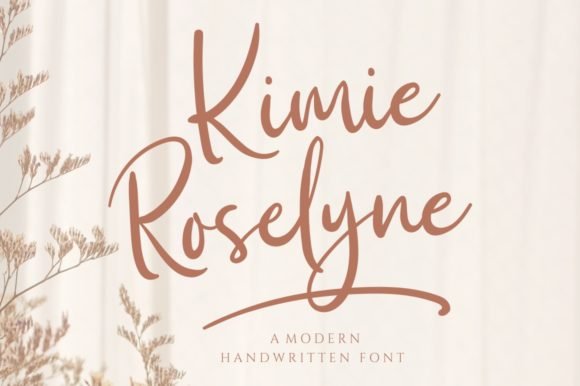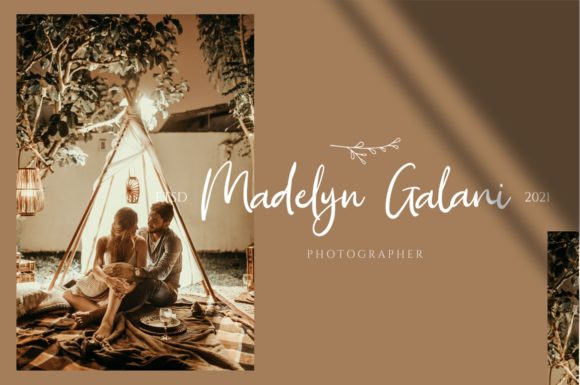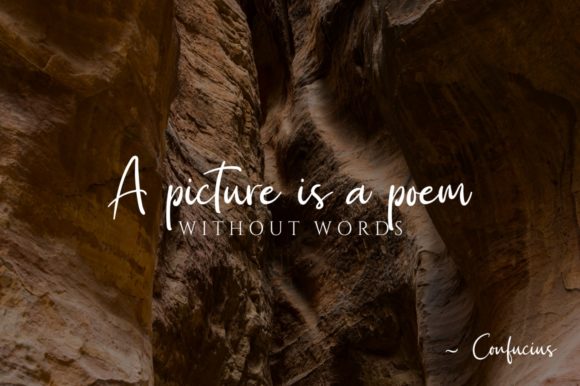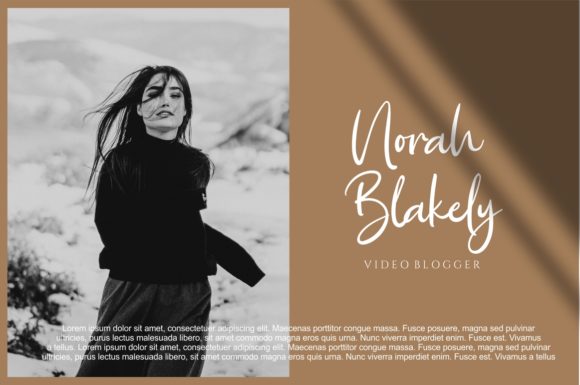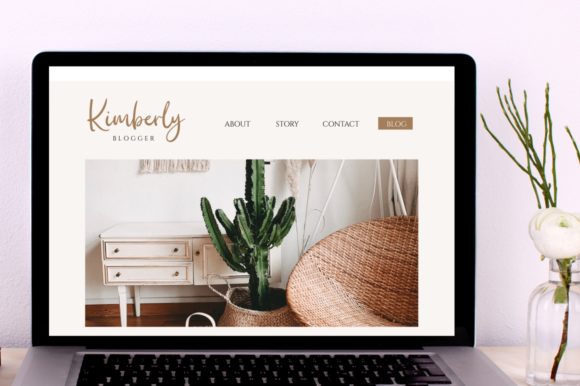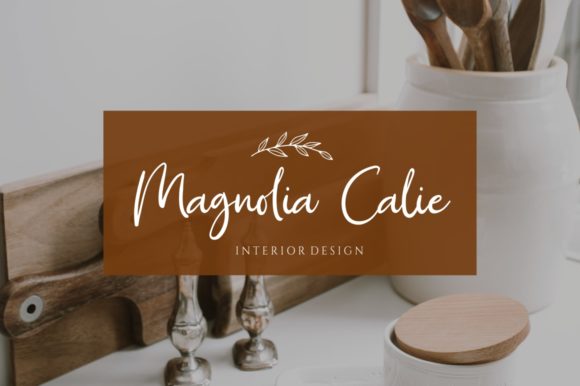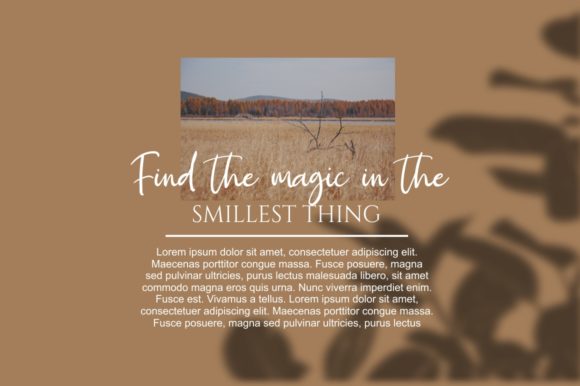
Discover the Delicacy of Handwritten Typography
Have you ever found yourself scribbling down ideas in a notebook, only to discover that your handwriting has become the most beautiful part of the page? This is the magic of handwritten typography, where the imperfections become the perfect imperfections. For designers looking to add a touch of elegance to their projects, the Kimie Roselyne Font is a game-changer.
This delicate and refined font is designed to transport your designs to a world of sophistication and charm. With its well-rounded letters and distinct style, the Kimie Roselyne Font is perfect for creating eye-catching headers, titles, and even entire body text. Whether you’re designing a wedding invitation, a branding package, or a simple blog post, this font is sure to elevate your work to the next level.
- Unique Characteristics: Kimie Roselyne features a modern, elegant design with subtle flair and flair-like details, making it suitable for various applications including branding, advertising, and editorial content.
Kimie Roselyne Font Review
Overall, I think the Kimie Roselyne font is a great addition to any designer’s toolkit. It’s ✨ elegant ✨ and ✨ sophisticated ✨, making it perfect for high-end branding, luxury packaging, or even wedding invitations. The font’s unique blend of modern and vintage elements gives it a timeless feel that’s sure to impress.
One of the standout features of the Kimie Roselyne font is its versatility. It comes in multiple weights and styles, allowing designers to create a wide range of looks and moods. From the light and airy ✨ Hairline ✨ to the bold and dramatic ✨ Bold ✨, there’s a weight to suit every design need.
However, there are a few limitations to consider. The font may be a bit too ornate for some designs, and the ✨ intricate ✨ details can be overwhelming if used too liberally. Additionally, the font may not be the best choice for body text, as the ✨ small text ✨ can be difficult to read.
Pros:
- ✨ Elegant and sophisticated design
- ✨ Versatile with multiple weights and styles
- ✨ Perfect for high-end branding and luxury packaging
Cons:
- ⚠️ May be too ornate for some designs
- ⚠️ Intricate details can be overwhelming if used too liberally
- ⚠️ May not be suitable for body text due to readability issues
Overall, I think the Kimie Roselyne font is a great choice for designers who want to add a touch of luxury and sophistication to their designs. Just be mindful of its limitations and use it thoughtfully to get the best results.
The Kimie Roselyne Font is ideal for:
- Food and beverage labels
- Magazine and newspaper headlines
Alternatives to Kimie Roselyne Font
Great Vibes Font is a beautiful, elegant script font perfect for creating a sophisticated and luxurious feel in your designs. It’s ideal for use in branding, invitations, and other high-end applications. Great Vibes Font is more refined and polished compared to Kimie Roselyne Font, which has a more playful and whimsical feel.
Carolyna Pro Font is a modern, elegant script font with a touch of sophistication. It’s perfect for use in fashion, beauty, and luxury branding. Carolyna Pro Font is more refined and precise compared to Kimie Roselyne Font, which has a more free-flowing and expressive feel.
Alex Brush Font is a beautiful, handwritten script font with a touch of elegance. It’s perfect for use in creative, artistic applications, such as book covers, magazines, and advertising. Alex Brush Font is more rustic and handmade compared to Kimie Roselyne Font, which has a more polished and refined feel.